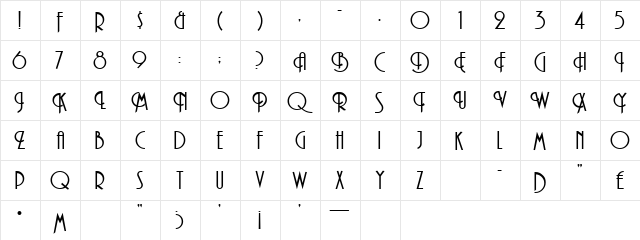
ALLENA Regular
Design Context for ALLENA Typeface
ALLENA is a composed and adaptable typeface that performs quietly and consistently across a wide range of design contexts.